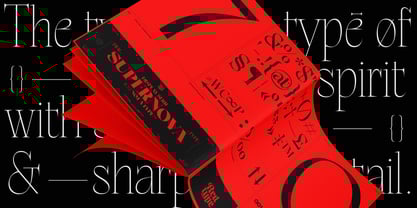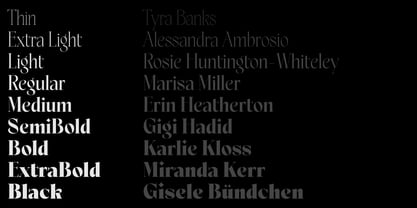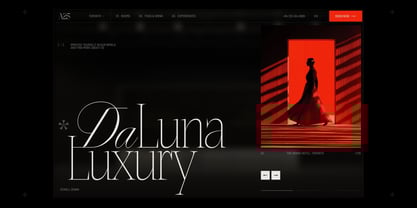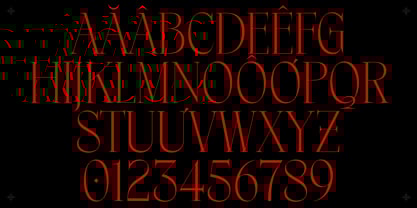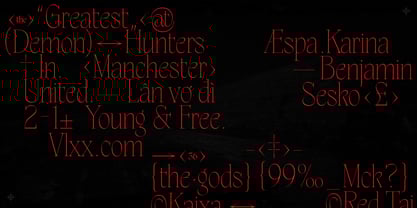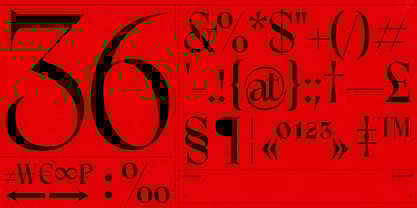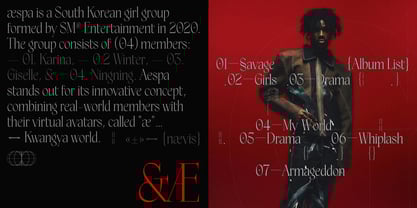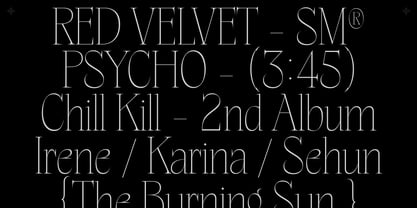
Kaixasena
by Red Type
The Kaixasena Font Family was designed by Quang Ngo and published by Red Type. Kaixasena contains 9 styles and family package options. More about this family
Kaixasena is an elegant, high-contrast serif typeface characterized by its modern, sharp, and edgy aesthetic. It showcases extreme stroke variation, seamlessly blending authoritative thick stems with delicate hairline serifs to create a crisp and sophisticated appearance. With a comprehensive family of 9 weights ranging from Thin to Black, this typeface provides maximum versatility for establishing a clear visual hierarchy. It is the ideal choice for luxury branding, high-fashion editorial projects, and professional designs that demand both refinement and impact. Perfect for use in branding, web design, and editorial layouts, Kaixasena stands out with its unique style and functional features, making it a valuable addition to any designer's toolkit.